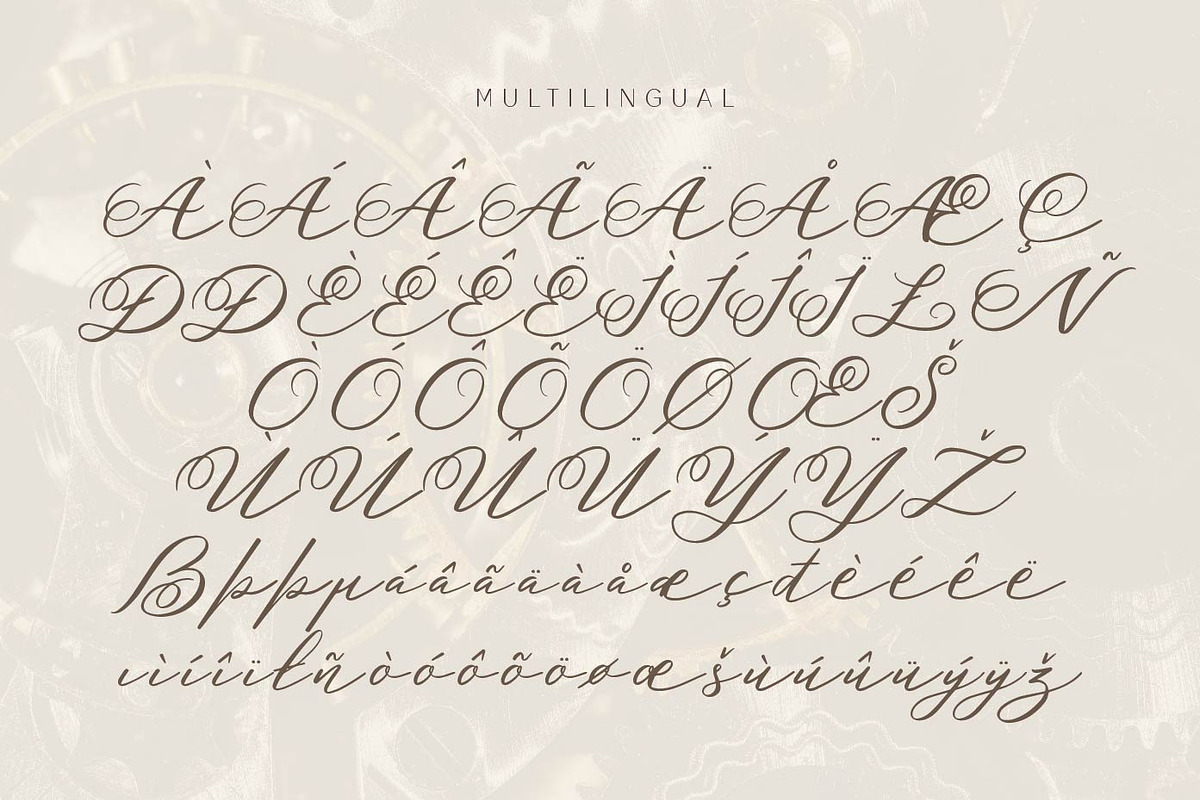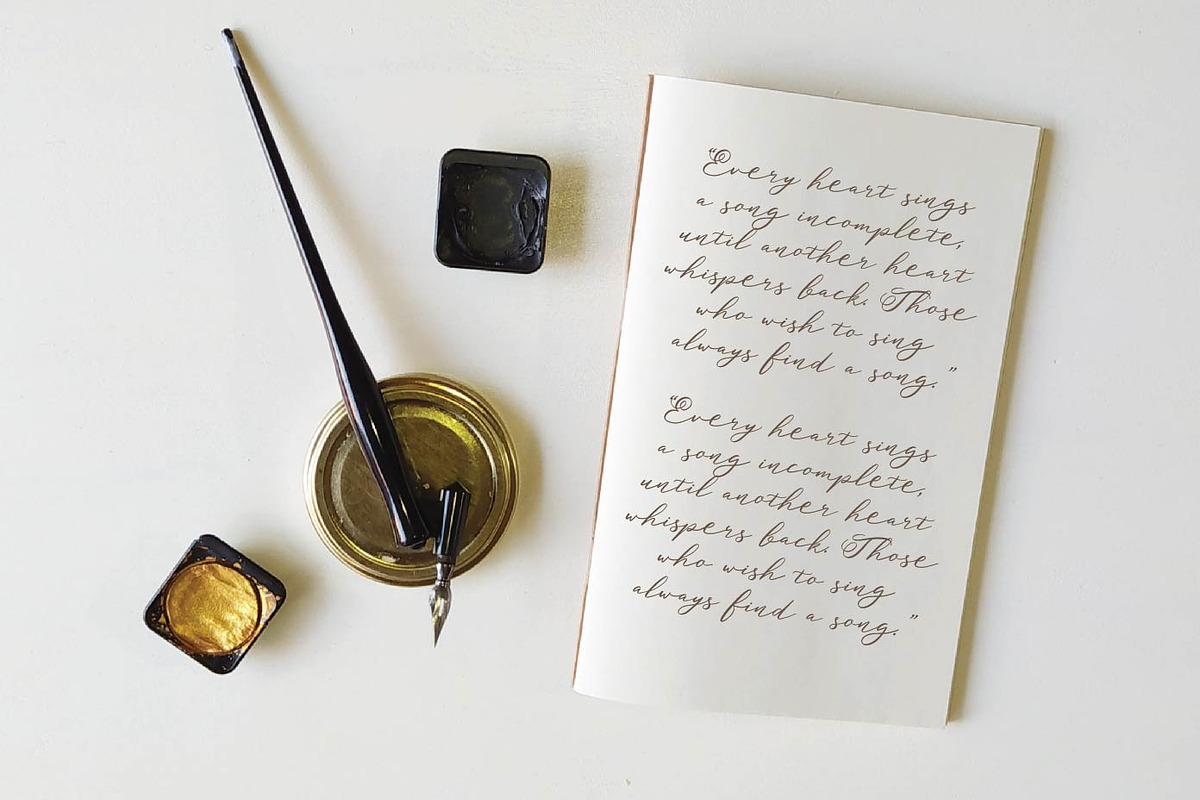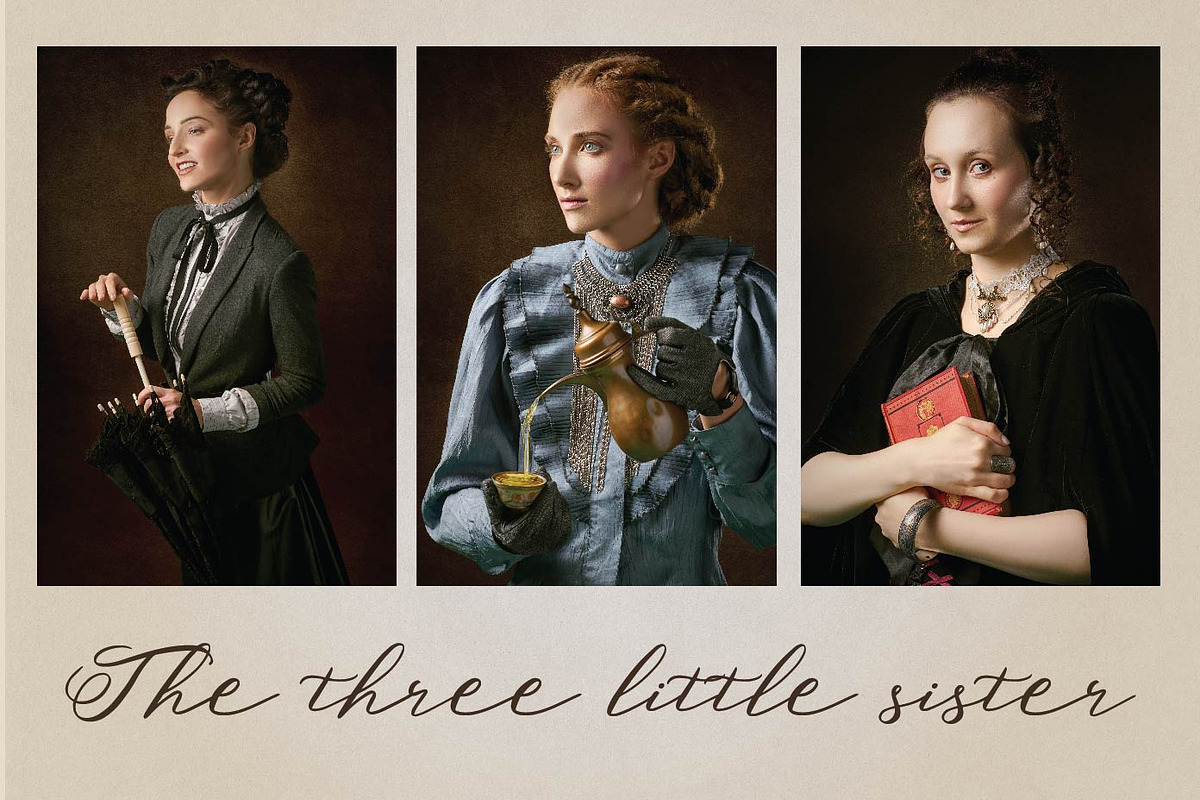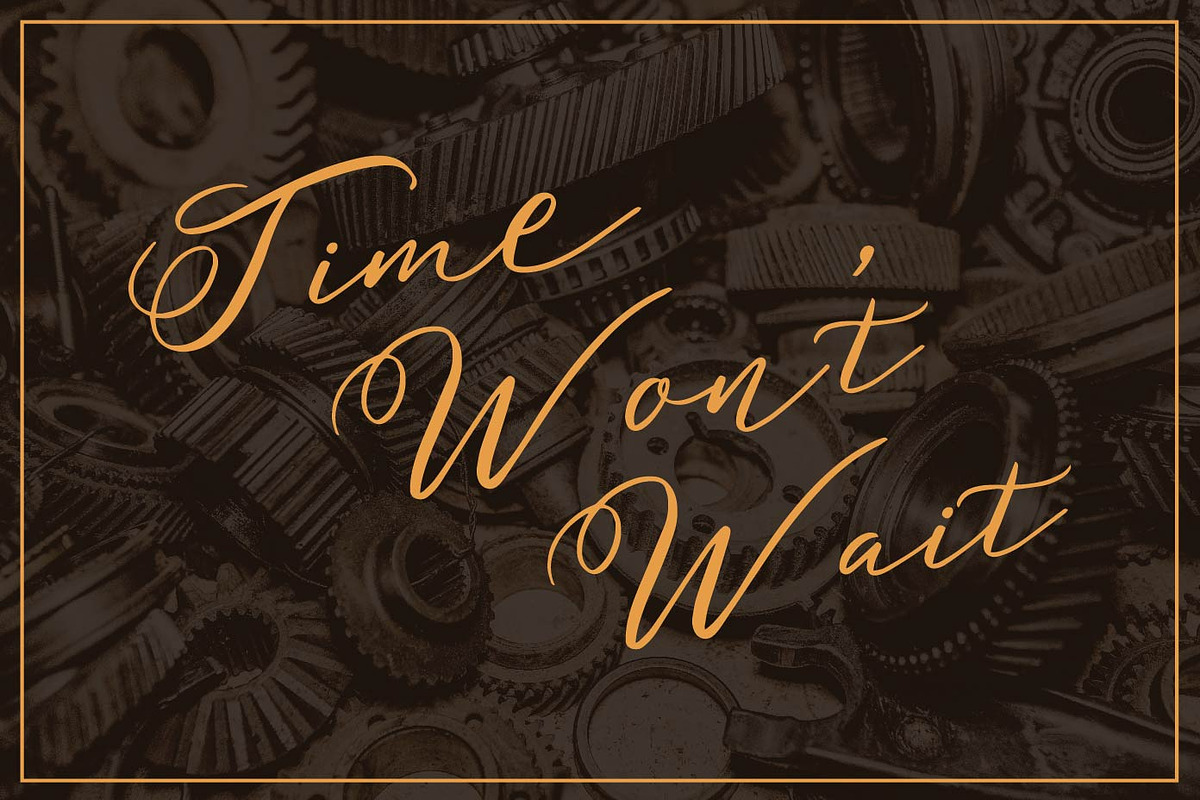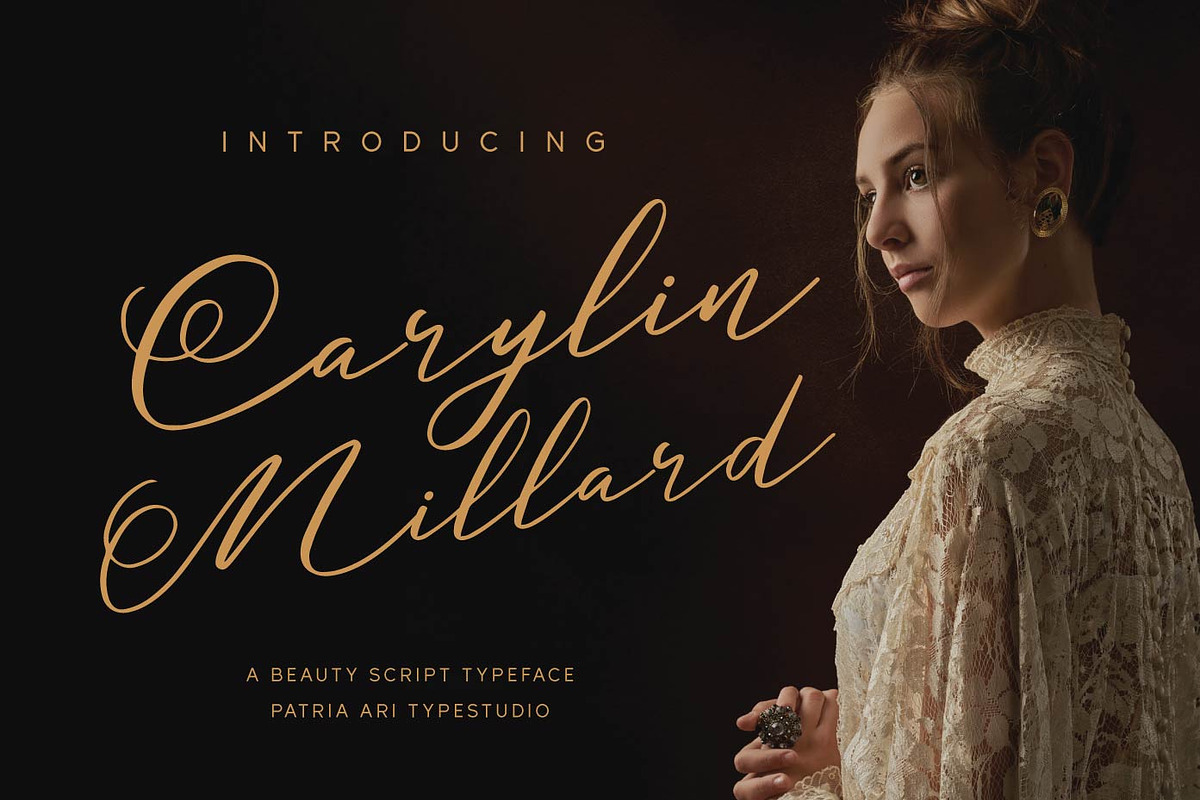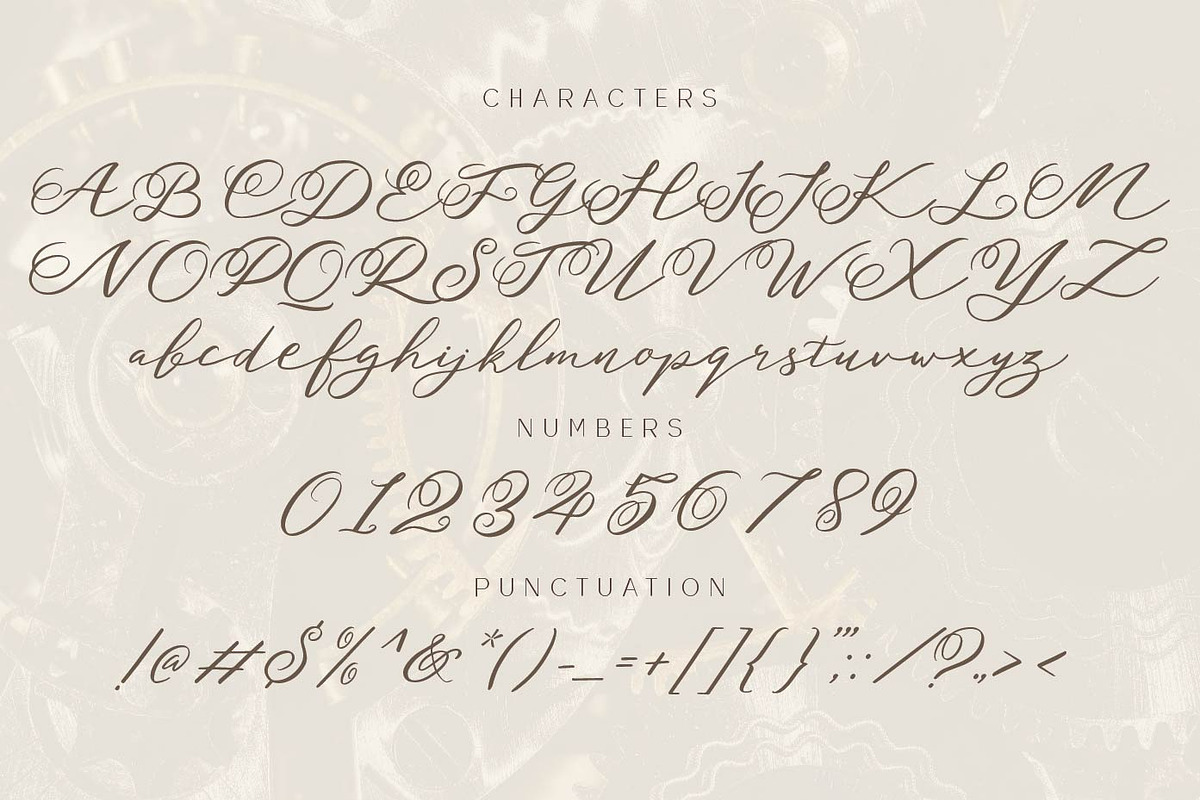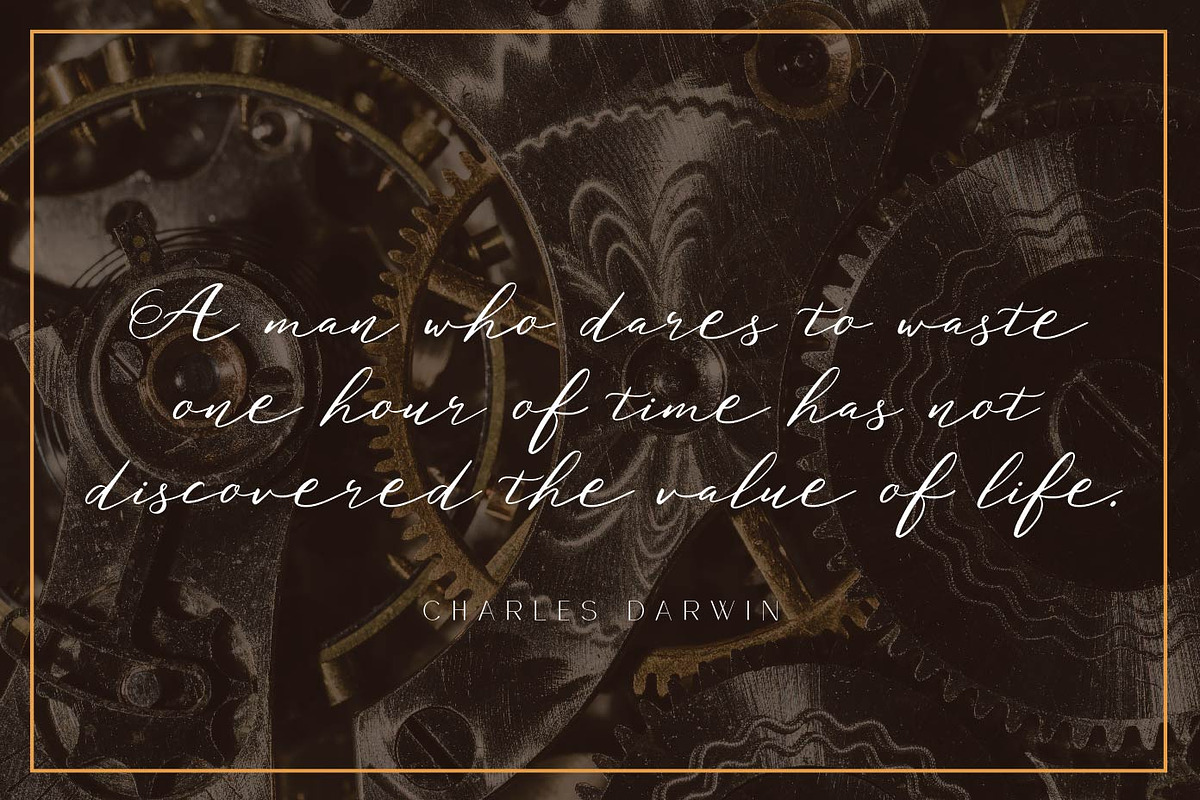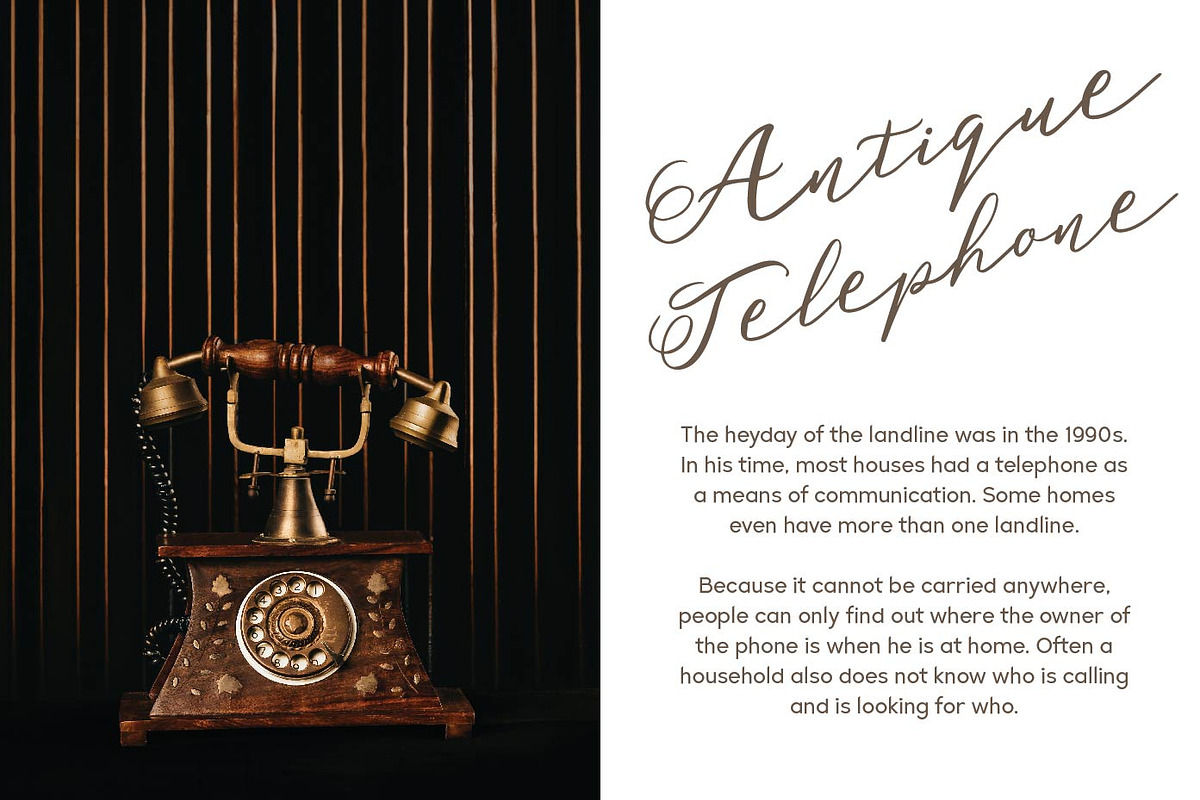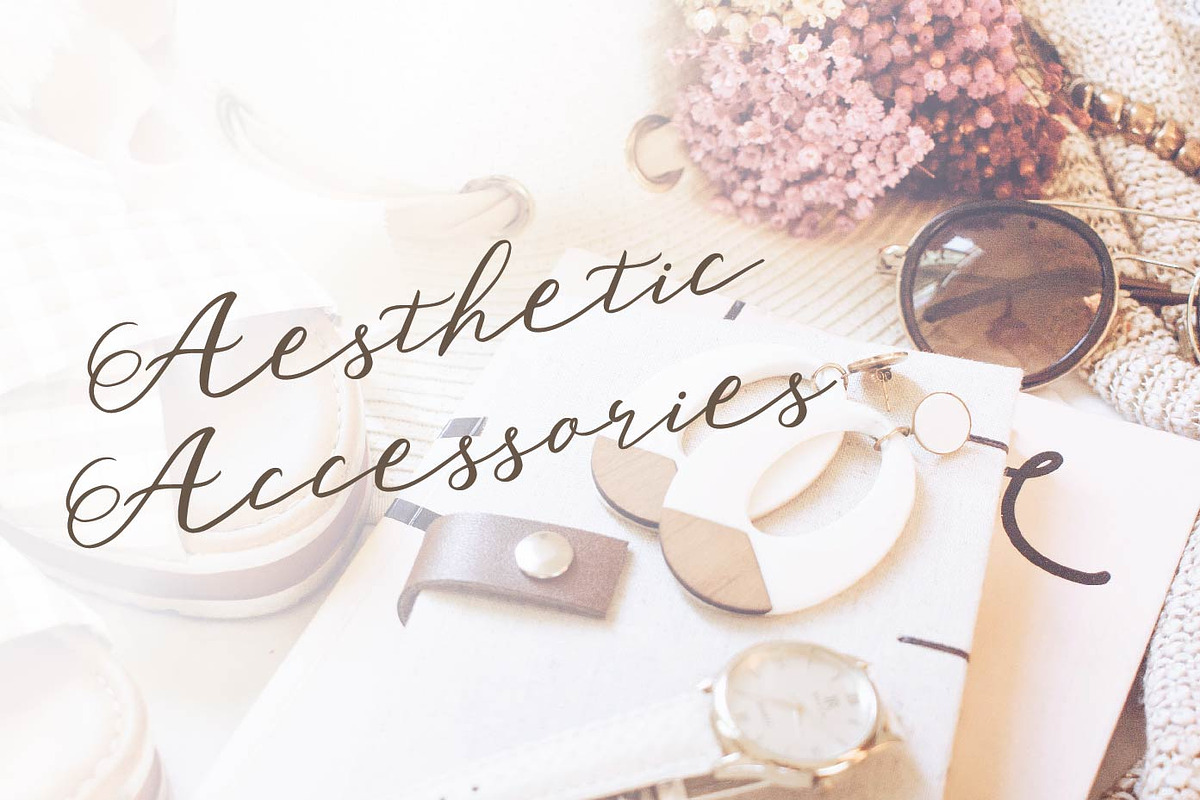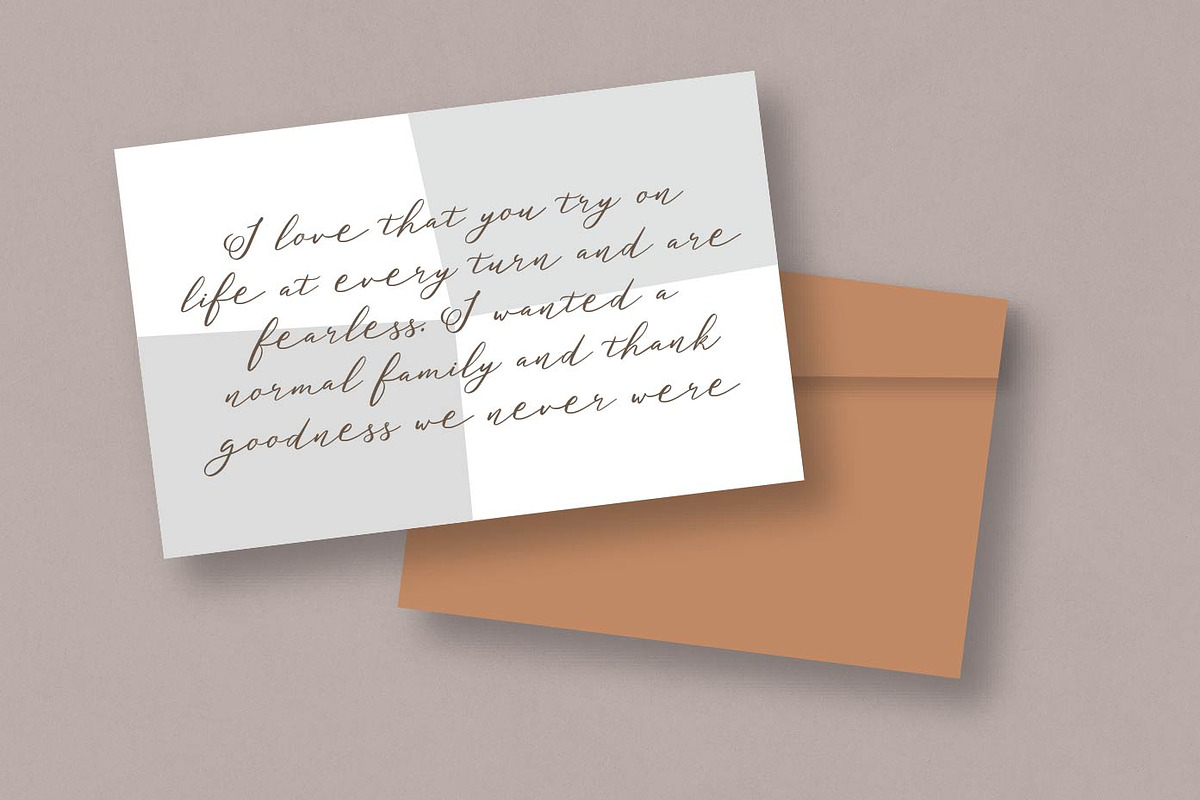
Carylin Millard
Introducing Carylin Millard – a luxurious minimalist and sophisticated handwritten signature-style script with beautiful curved shapes.
Carylin Millard is perfect for branding projects, logo, wedding invitation, social media posts, advertisements, product packaging, product designs, label, photography, watermark, invitation, stationery and any projects that need handwriting taste.
Uppercase Lowercase Numbers Punctuation & symbols Accented characters